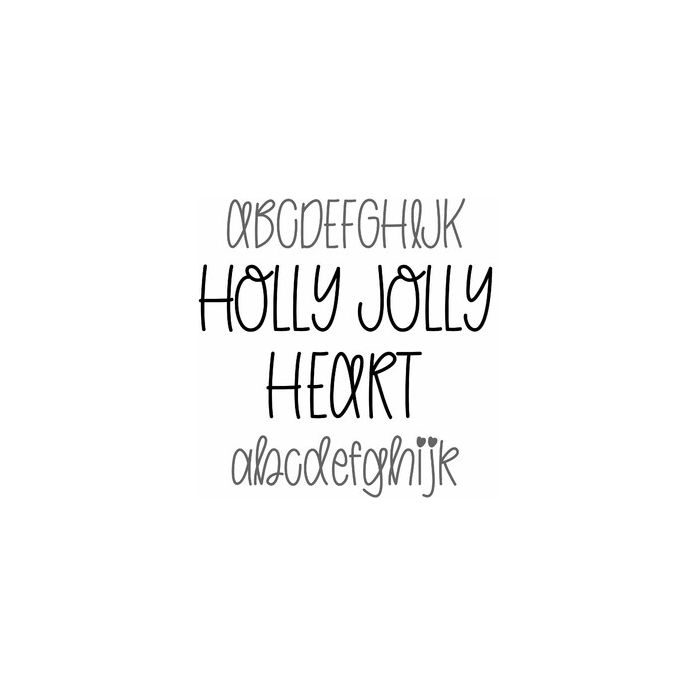
Holly Jolly Heart is a Christmas handwriting font for fun holiday crafts, cards, signs, labels, gifts, coffee mugs, bags, monograms, and personalization projects. Includes alphabet, numbers, and punctuation.